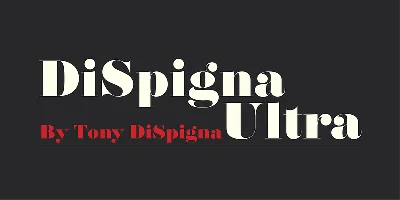
DiSpigna Ultra Font
DiSpigna Ultra Font is a bold and striking display typeface with a modern, ultra-weighted design. Featuring strong, thick letterforms and a high-impact aesthetic, this font is perfect for projects that need to make a statement, such as logos, posters, headlines, branding, and any design where maximum visibility is required.
DiSpigna Ultra Font combines contemporary design with a strong, sturdy structure. Its bold weight ensures it stands out in both digital and print formats, making it ideal for large-scale designs, advertising, and creative projects that demand attention and strength.
The font pairs well with lighter sans-serifs or minimalistic typefaces to balance its heavy presence, creating an impactful typographic composition.